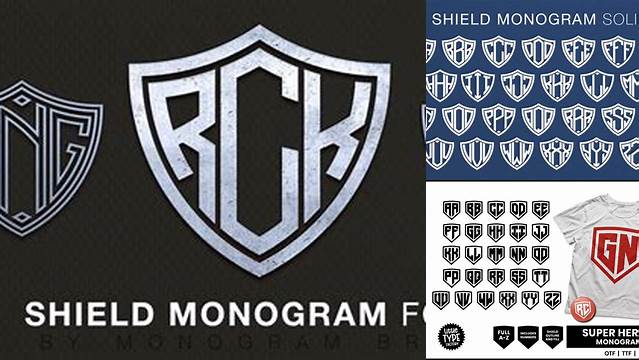
Shield Monogram Font: Free Downloads & Usage Guide
Are you looking to create a unique and personalized monogram? Do you want to add a touch of elegance and sophistication to your designs? If so, you've come to the right place! In this article, guys, we'll delve into the world of shield monogram fonts, explore where you can find them for free, and guide you on how to use them effectively in your creative projects. Whether you're a seasoned designer or just starting, you'll discover how these versatile fonts can elevate your designs and leave a lasting impression.
What is a Shield Monogram Font?
Before we dive into the free downloads, let's understand what a shield monogram font actually is. Imagine a classic monogram, typically featuring two or three initials intertwined, but now enclosed within a decorative shield shape. This shield acts as a frame, adding a sense of structure, heraldry, and timeless appeal to the monogram. Shield monograms are often associated with tradition, family crests, and a touch of vintage charm, making them a popular choice for a wide range of applications.
The beauty of a shield monogram font lies in its versatility. It's not just a font; it's a design element in itself. The shield can be simple and understated or ornate and elaborate, depending on the specific font style. This allows you to find the perfect balance between the initials and the surrounding shield, ensuring that your monogram accurately reflects the desired aesthetic. You can find shield monogram fonts in various styles, from classic serif fonts that exude elegance and formality to modern sans-serif fonts that offer a cleaner, more contemporary feel. The possibilities are endless, and the choice depends entirely on your personal preference and the specific project you're working on.
Think about where you can use these monograms. Shield monograms are perfect for a multitude of projects, adding a touch of class and personalization. They are a fantastic choice for wedding invitations, where they can represent the joining of two families and add a sophisticated touch. They also work beautifully on stationery, giving your personal or business correspondence a refined and professional look. Imagine your initials emblazoned on letterheads, business cards, or thank-you notes – it's a subtle yet powerful way to make a statement. Beyond paper goods, shield monograms can be used on a variety of products, such as clothing, accessories, and home décor items. Envision a custom-embroidered shield monogram on a tote bag, a personalized shield monogram pendant, or even a striking shield monogram design printed on throw pillows. The possibilities are truly limitless, and a shield monogram can add a touch of personalized elegance to almost anything. So, if you're looking to make your mark with a design that's both timeless and unique, exploring the world of shield monogram fonts is an excellent place to start.
Where to Find Free Shield Monogram Fonts
Individual Designers' Websites: Many independent font designers offer free fonts on their personal websites as a way to showcase their work and attract potential clients. These fonts are often unique and well-crafted, and you might find some hidden gems that you wouldn't find on larger font websites. To find these designers, you can try searching online design communities or blogs that feature font recommendations. When downloading fonts from individual designers' websites, be sure to carefully read the licensing information and respect the designer's terms of use.
Online Design Communities and Forums: Online design communities and forums can be excellent places to discover free fonts, including shield monogram fonts. Members often share their favorite resources and recommendations, and you might even find designers offering free fonts directly to the community. Websites like Behance and Dribbble are great platforms for connecting with designers and discovering new fonts. Just remember to always verify the licensing terms before using any font you find in an online community.
Remember, when downloading free shield monogram fonts, it's essential to be mindful of licensing. Always read the license agreement carefully to understand how you can use the font legally. If you're unsure about the terms, it's always best to err on the side of caution and contact the font designer for clarification. By doing your due diligence, you can ensure that you're using free fonts responsibly and ethically.
How to Use Shield Monogram Fonts
Okay, guys, you've found the perfect shield monogram font, now what? Let's talk about how to use it effectively in your designs. The beauty of these fonts lies in their versatility, but a few key principles will help you create stunning monograms that truly stand out.